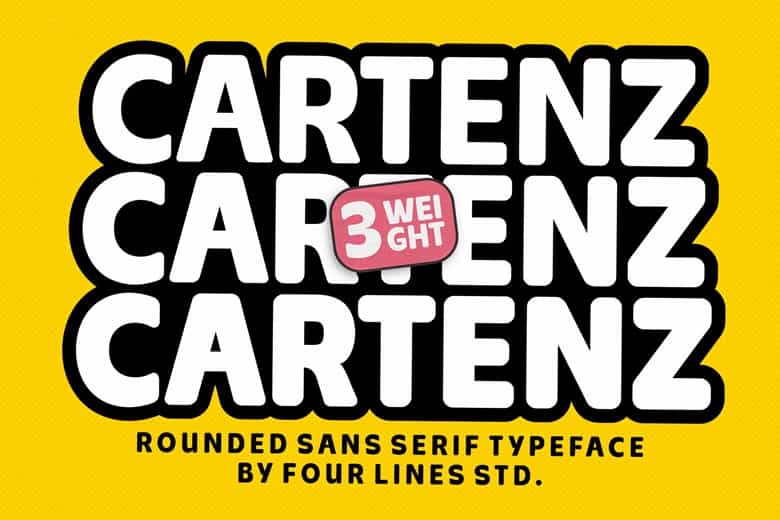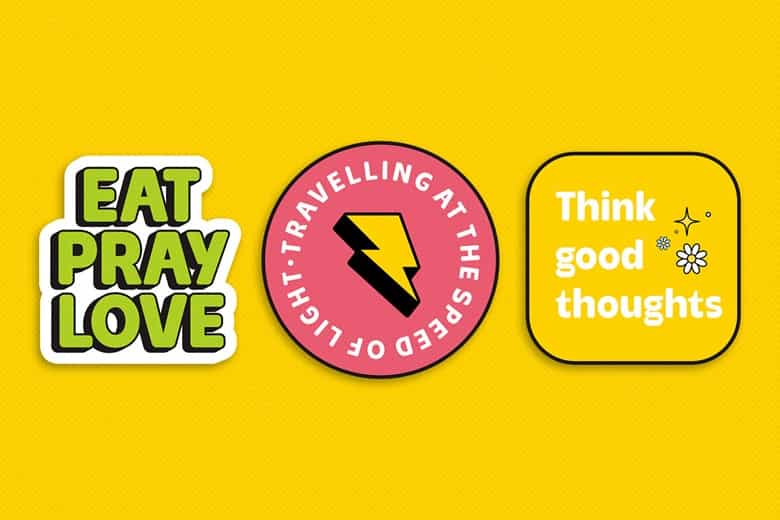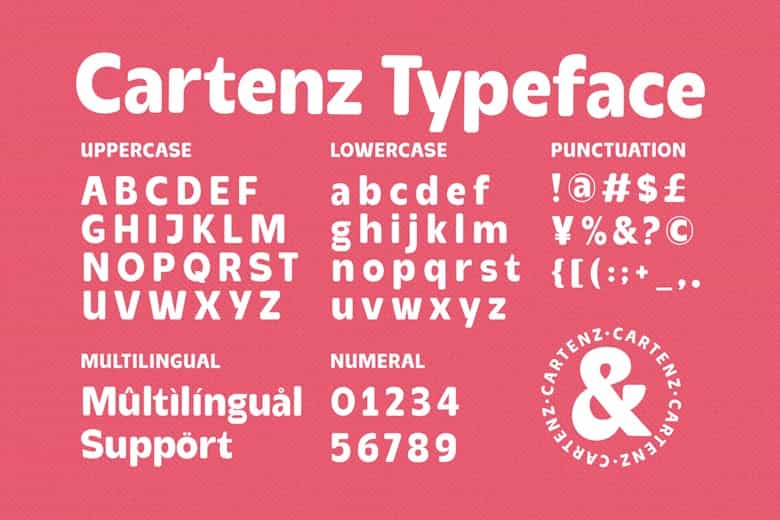
Discover Cartenz Font Family, part of the Sans Serif collection—a versatile and unique font perfect for adding a personal touch to your projects. Download it for free and enjoy crafting designs with style, from invitations to social media posts. This font is available exclusively for personal use, giving you the freedom to create without limits. Unlock your creativity with Cartenz Font Family today!
The shape of the Cartenz Typeface design has a smooth line and structure, making them look fashionable and easy to read for any existing design. It is sleek, it has smooth straight cuts, and has a minor curved design, making it fashionable and flexible for use in numerous projects. He can handle logos, posters, greetings, and other promotions or anything as far as branding is a concern for any business.